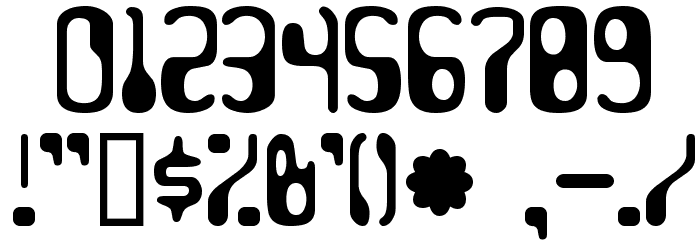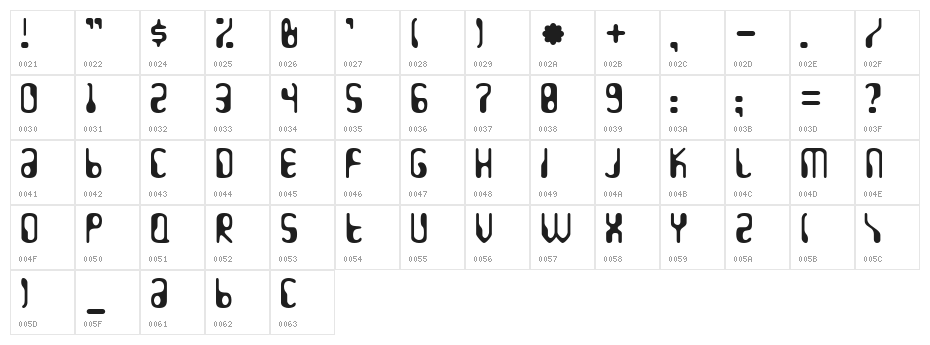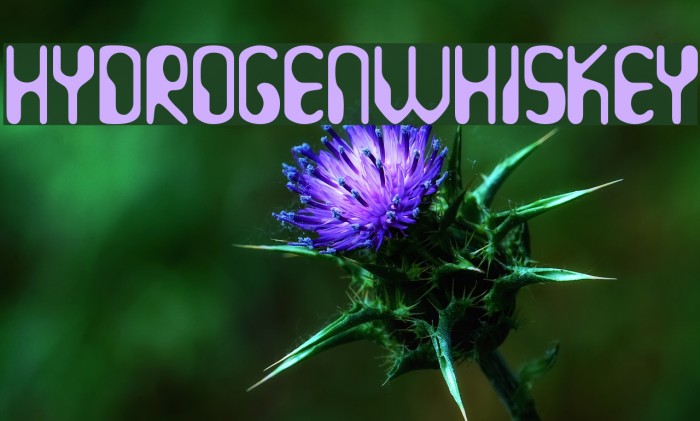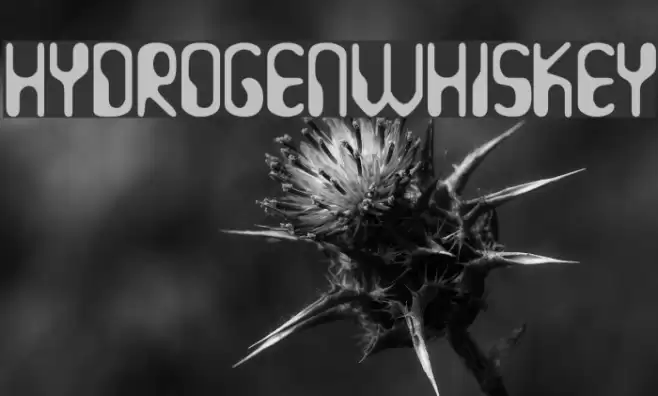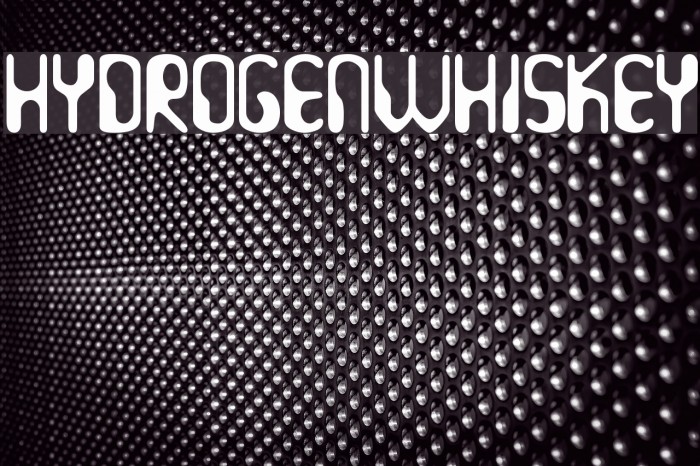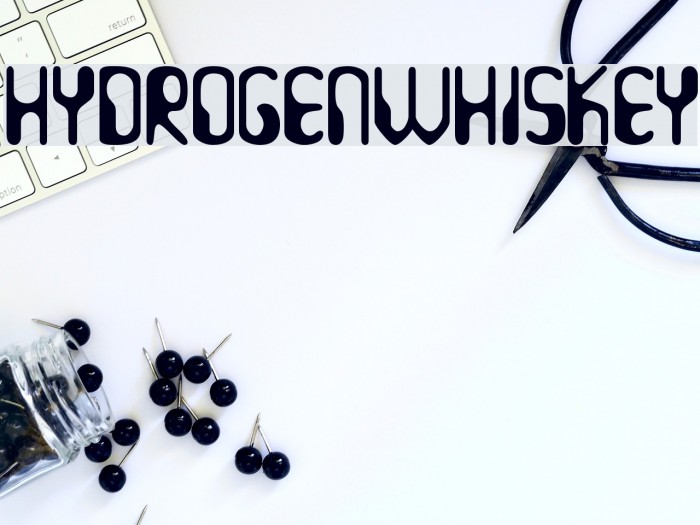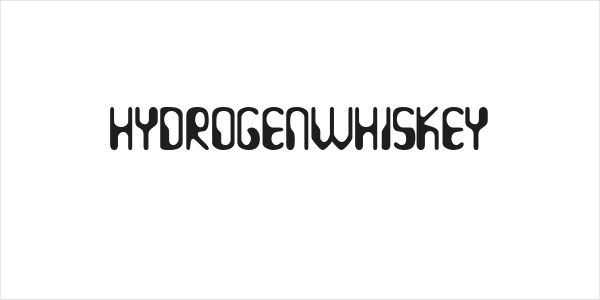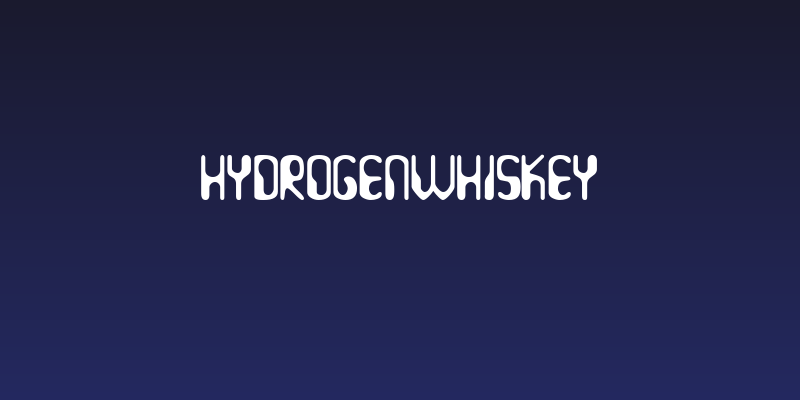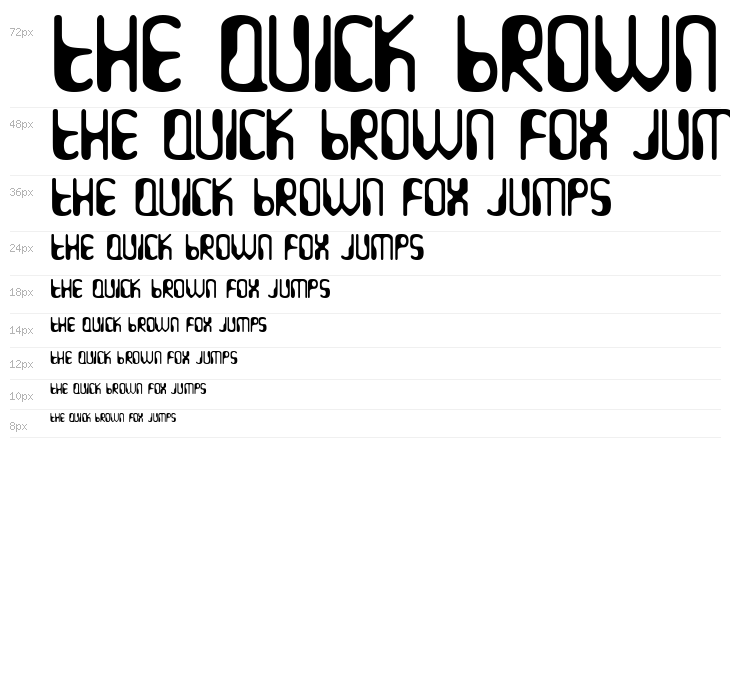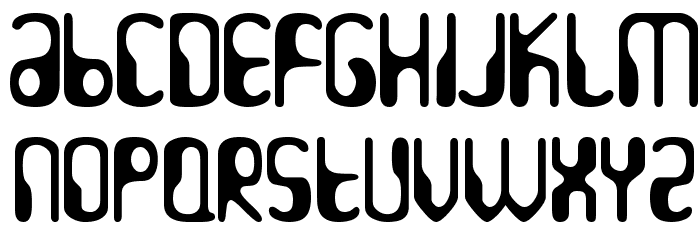
HydrogenWhiskey Font
HydrogenWhiskey Description
This font features a bold and rounded design with a distinctly modern and futuristic aesthetic. The characters are characterized by their thick, uniform strokes and smooth curves, giving them a playful yet sophisticated appearance. The uppercase and lowercase letters maintain a consistent style, with rounded edges and a uniform weight that enhances readability. The numbers and special characters follow the same design principles, ensuring a cohesive look across all elements. This font's unique style makes it stand out, making it suitable for projects that require a contemporary and eye-catching typeface.